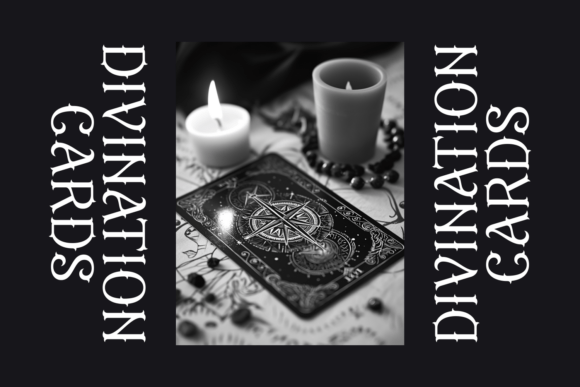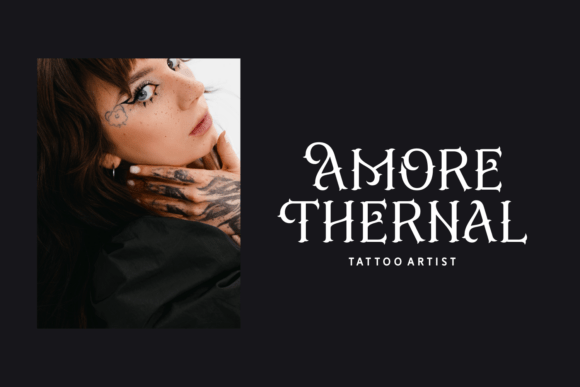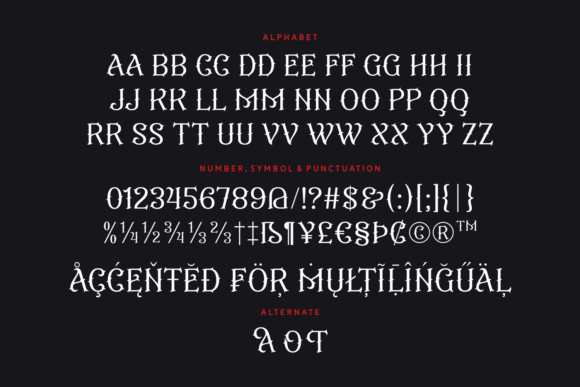
Introduction to Classy Tattoo Font
Have you ever been stuck on a creative project, pouring over design resources, searching for that perfect font to elevate your work? I know I have. One moment that stands out was when I stumbled upon Classy Tattoo Font – a modern blackletter typeface that completely transformed the look and feel of my designs.
Designed with tattoo culture and gothic aesthetics in mind, Classy Tattoo Font brings a unique blend of rebellion and class to your typography. With its clean, sharp edges and delicate hooks, this font is perfect for adding high-quality, authentic touches to your work. Whether you’re designing bold statements for branding, tattoo studio logos, or edgy apparel, Classy Tattoo Font is a valuable design resource that will help take your creative project to the next level.
Key Features of Classy Tattoo Font
- High-quality design resource with a unique, stylish aesthetic, perfect for creative projects.
- Includes a range of glyphs, including letters, numbers, and symbols, to support a wide range of creative projects.
- Designed specifically for use in tattoo designs, logos, and other creative applications where a high-end, stylish font is required.
Honest Review: Classy Tattoo Font
I recently stumbled upon the Classy Tattoo Font and I must say, it’s been a game-changer for my creative projects. As a designer, I’m always on the lookout for high-quality design resources that can elevate my work.
One of the things that stands out about this font is its versatility. It’s perfect for use in tattoo designs, logos, and even branding materials. The transparent background makes it easy to layer and combine with other design elements.
- High-quality design that looks great on various mediums
- Easy to customize and use in creative projects
- ⚠️ Limited character set, which may not be suitable for long text
- ⚠️ Not ideal for use in small text sizes, as it may become pixelated
Overall, I’m really impressed with the Classy Tattoo Font. It’s a great addition to any designer’s toolkit and I would definitely recommend it for any creative project. With a little creativity, the possibilities are endless! ✨
The Classy Tattoo Font is a high-quality design resource ideal for various creative projects, from tattoos to fashion designs. With a transparent background, this font is easily customizable and can be used in various applications.
To get the most out of the Classy Tattoo Font, use it in combination with other design elements, such as graphics and images. Experiment with different font sizes and styles to create a unique look.
The Classy Tattoo Font is perfect for:
- Tattoo designs
- Fashion designs